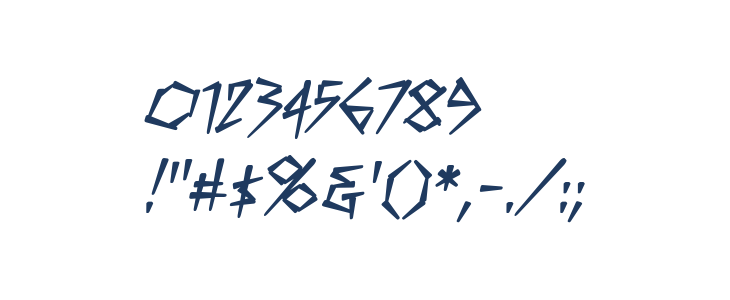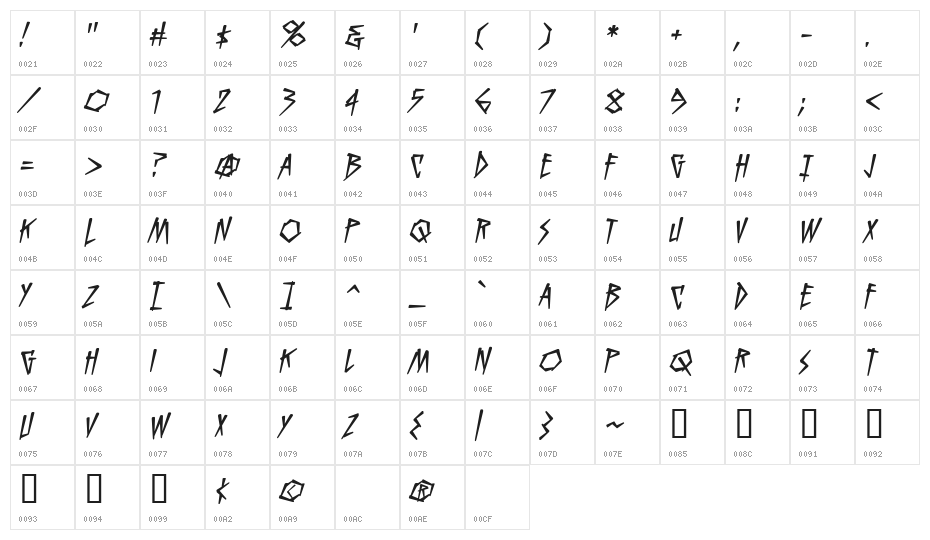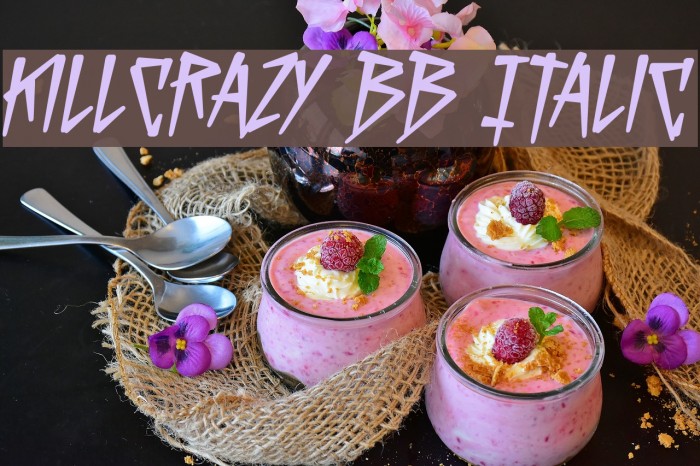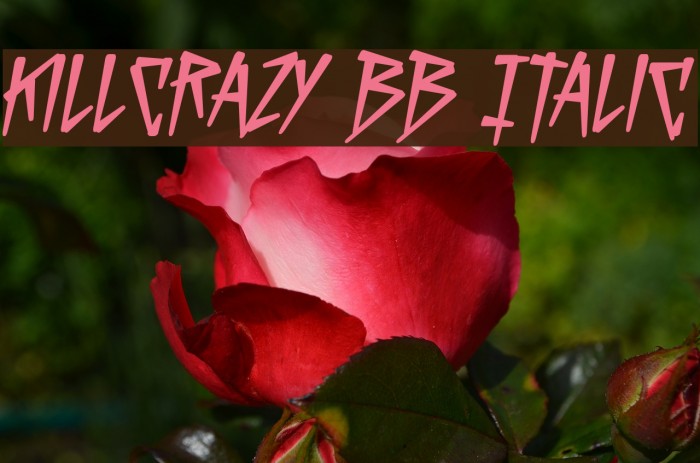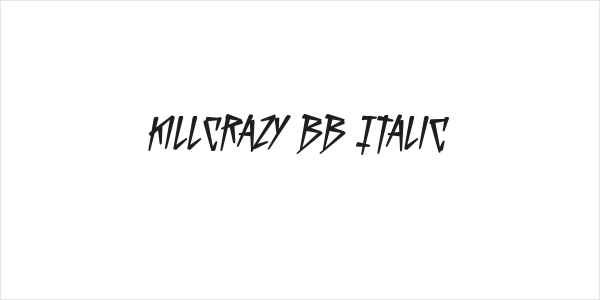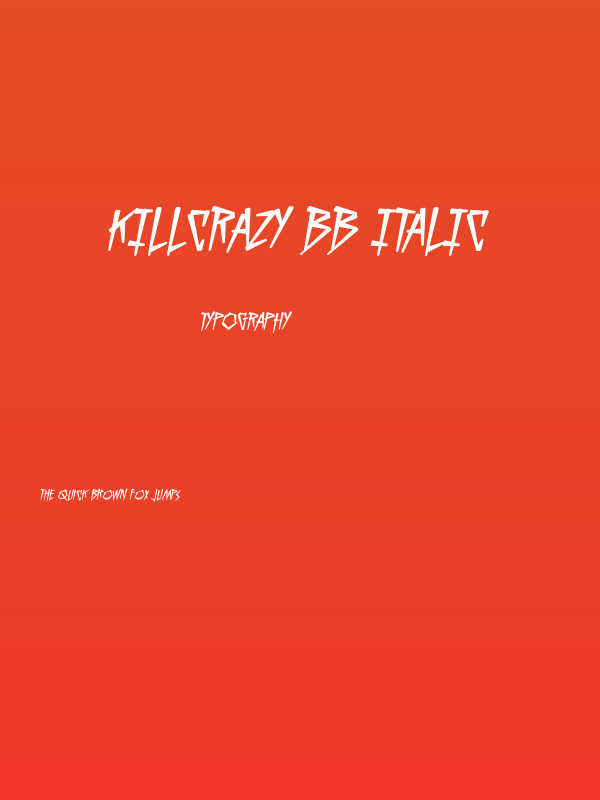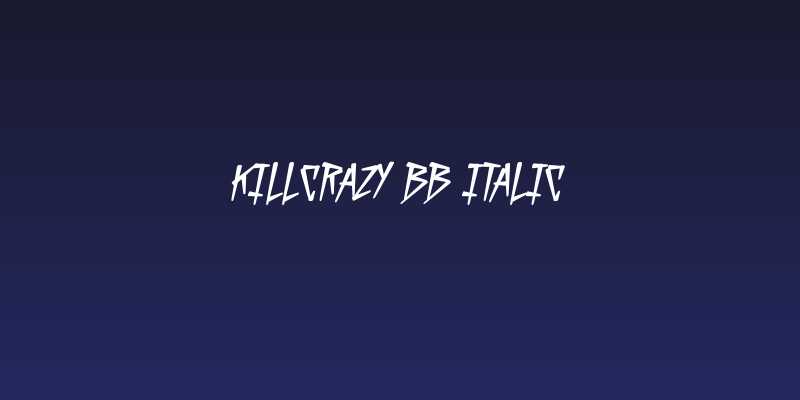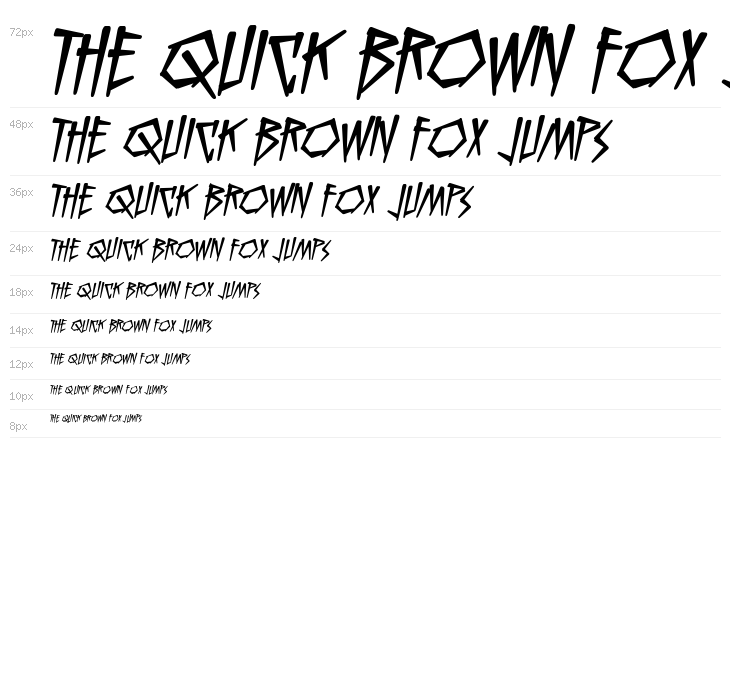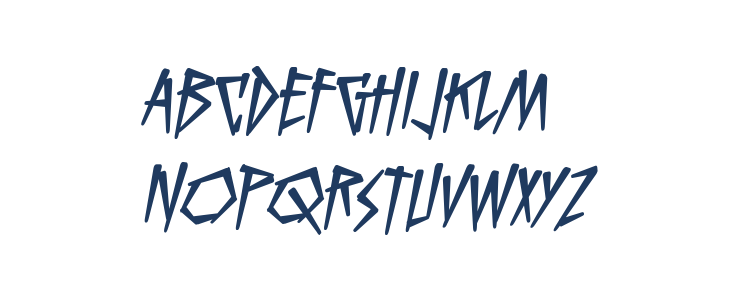
KillCrazy BB Italic Font
KillCrazy BB Italic Description
This font features a bold and edgy design with sharp, angular lines and a dynamic slant, giving it a sense of motion and intensity. The uppercase and lowercase letters maintain a consistent style, with exaggerated strokes and a slightly chaotic appearance. Numbers and special characters follow the same energetic theme, making the font suitable for projects that require a strong, impactful visual presence. The overall aesthetic is modern and rebellious, perfect for grabbing attention.
| Overall Style | Modern, Edgy |
| Use Case | Headlines, Posters, Branding |
| Proposed Projects | Ideal for music album covers, posters, graffiti art, and branding that requires a bold statement. |